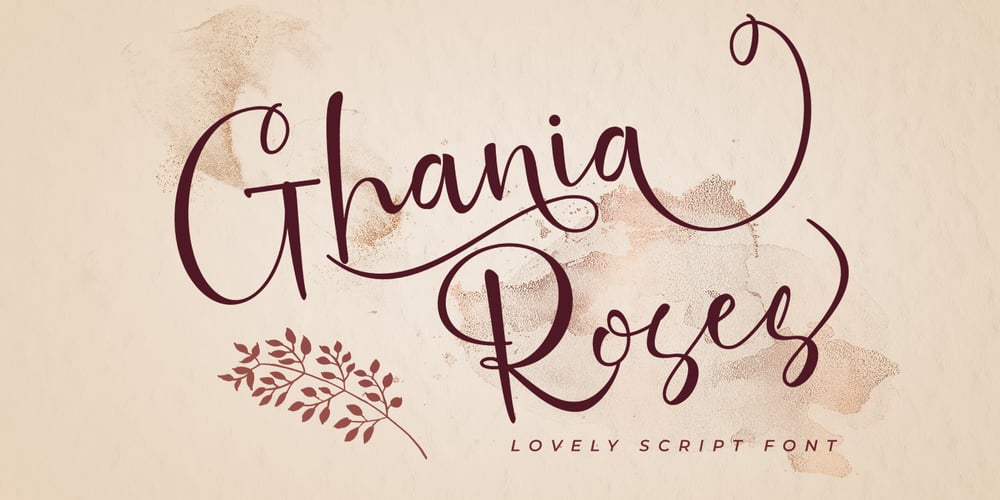
Ghania Roses Font Family was designed by Ak Mal and published by Akrtype Studio. Ghania Roses contains 1 styles and family package options. Ghania Roses Script is a lovely script that brings a luxury feel.Ghania Roses comes with 460+ glyphs, The natural handwritten script is suitable for you who needs a typeface for headlines, logotypes, apparel, wedding invitations, Valentines day, branding, packaging, advertising, watermark, and more.Ghania Roses was created to look as close to authentic hand-lettering as possible. Not only will you find a range of stylized ligatures/alternates, but you’ll have much fun mixing and matching the upper and lowercase letters to give each word a truly personalized, hand-lettered vibe.